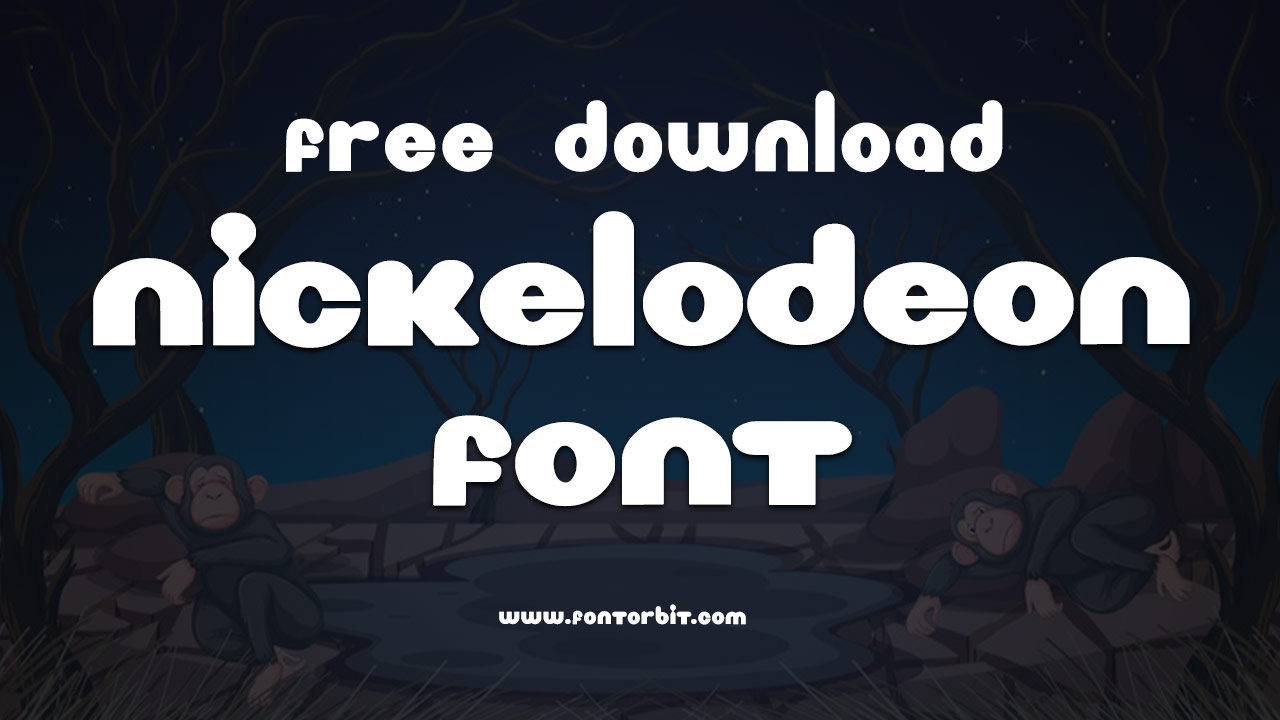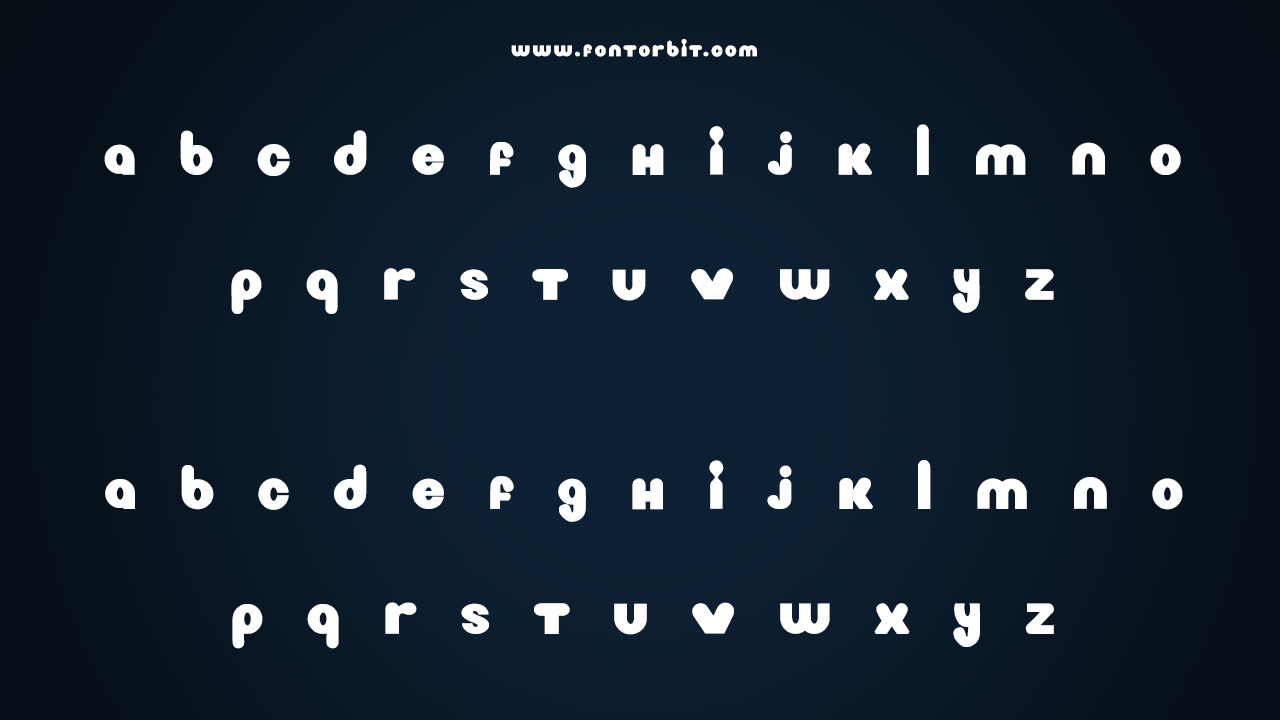
The Nickelodeon Font, inspired by the iconic logotype of the Nickelodeon network, is a playful and distinctive typeface that captures the essence of the beloved children’s television channel. Created to mimic the bold, orange lettering of the Nickelodeon logo, this font is perfect for adding a touch of fun and nostalgia to various design projects.
The Nickelodeon Font Family
The Nickelodeon Font is based on the custom logotype used by Nickelodeon, featuring a unique style that has evolved since the network’s founding. The replica font, Nickelodeon TV, is designed by Juan-e-b and is available for free download.
This font captures the playful and bold characteristics of the original Nickelodeon logo, making it a great choice for themed designs and nostalgic projects.
The Nickelodeon Font is ideal for projects that need a fun, retro feel. Its bold and recognizable style makes it perfect for fan art, themed invitations, and any design that aims to evoke the spirit of Nickelodeon’s classic branding.
The Nickelodeon Font offers a playful and distinctive style inspired by the Nickelodeon logo. Perfect for personal projects, fan art, and themed designs, this font captures the essence of the network’s fun and energetic branding. Available for free for personal use, it provides a touch of nostalgia and creativity to your typographic needs.
1.What Are The Disadvantages Of Using The Nickelodeon Font In Print Media?
Due to its playful, informal style, the Nickelodeon font may be unreadable in small sizes and may not suit formal or professional contexts.
2.What Are The Best Pairings For The Nickelodeon Font In Typography?
Pair Nickelodeon with clean, minimalist fonts like Open Sans or Montserrat to balance its playful style and enhance readability.
4.What Are The Accessibility Considerations For The Nickelodeon Font?
Ensure sufficient contrast with the background and avoid using it in small sizes to maintain readability and accessibility for all users.
5.Who Designed The Nickelodeon Typeface?
The Nickelodeon typeface, known as Nickelodeon TV, was designed by Juan-e-b.
6.What Are The Recommended Font Sizes For The Nickelodeon Font?
Recommended sizes are 24 pt or larger for headings and 18 pt for subheadings to ensure legibility and maintain the font’s playful character.